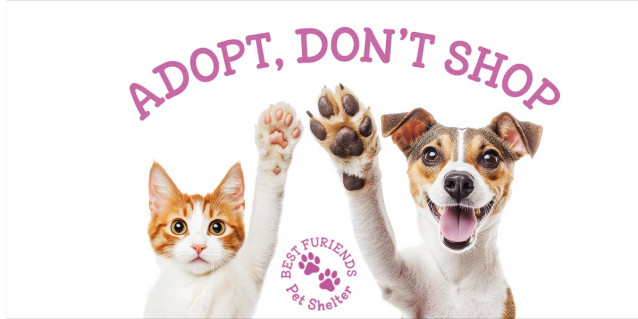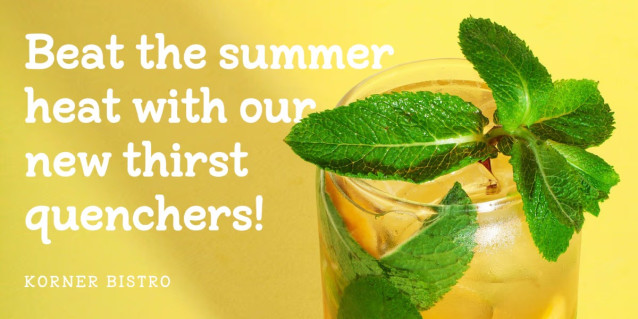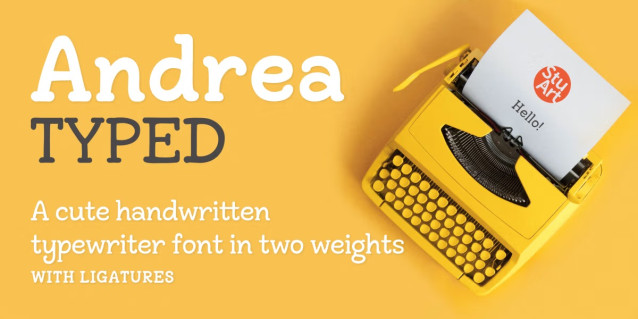
Andrea Typed
Andrea Typed Font is derived from StuArt’s Andrea Handwriting series, with slabs added for that typewritten look. Inspired by her search for a casual slab serif font to pair with a handwriting font and not quite finding “the one”, Andrea made her own. The result is a playful yet also professional look that is great for branding, crafting, cards, invitations, signs, and more! Both the regular and bold weights have a charm and character all their own. Enjoy!